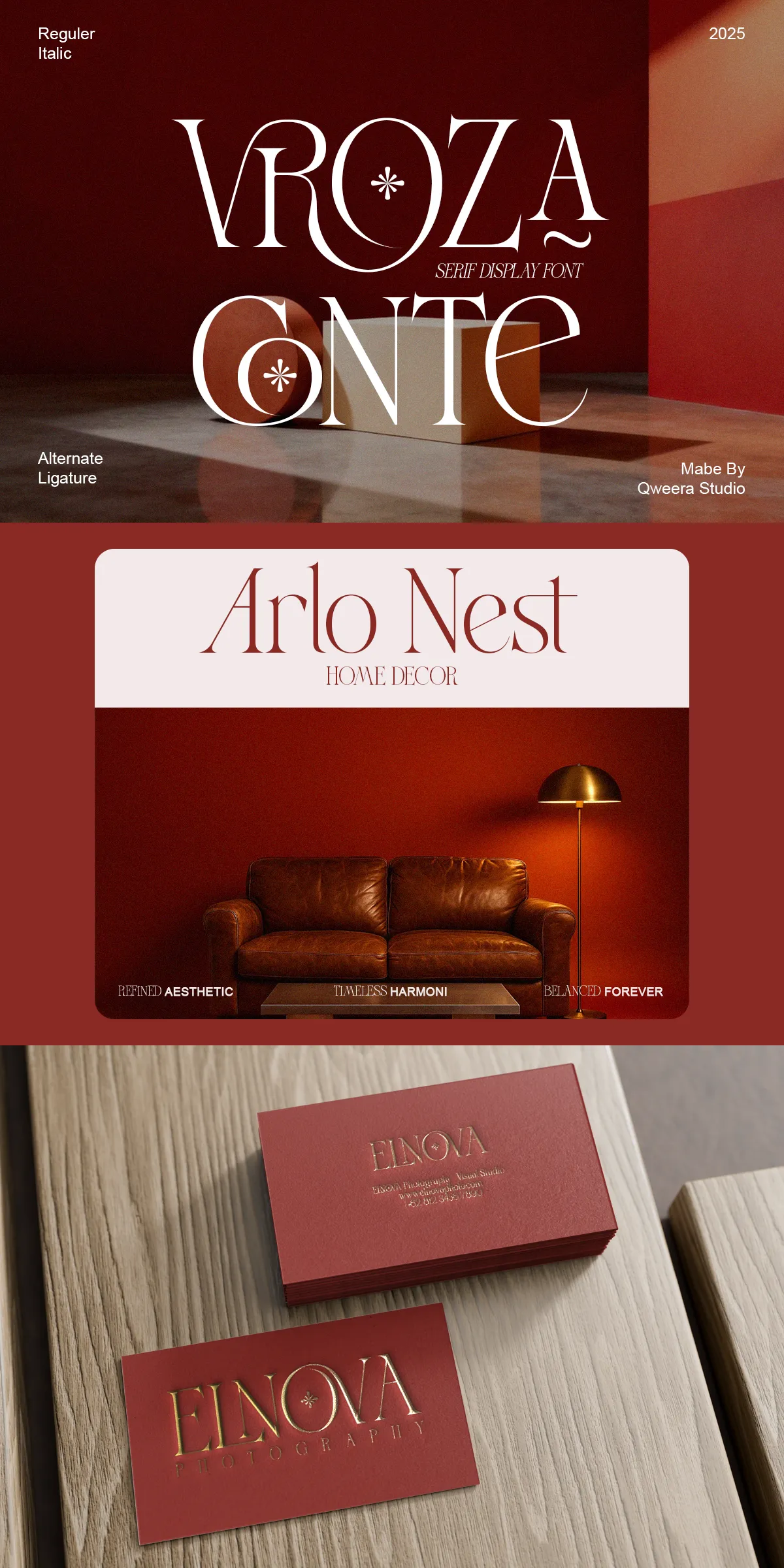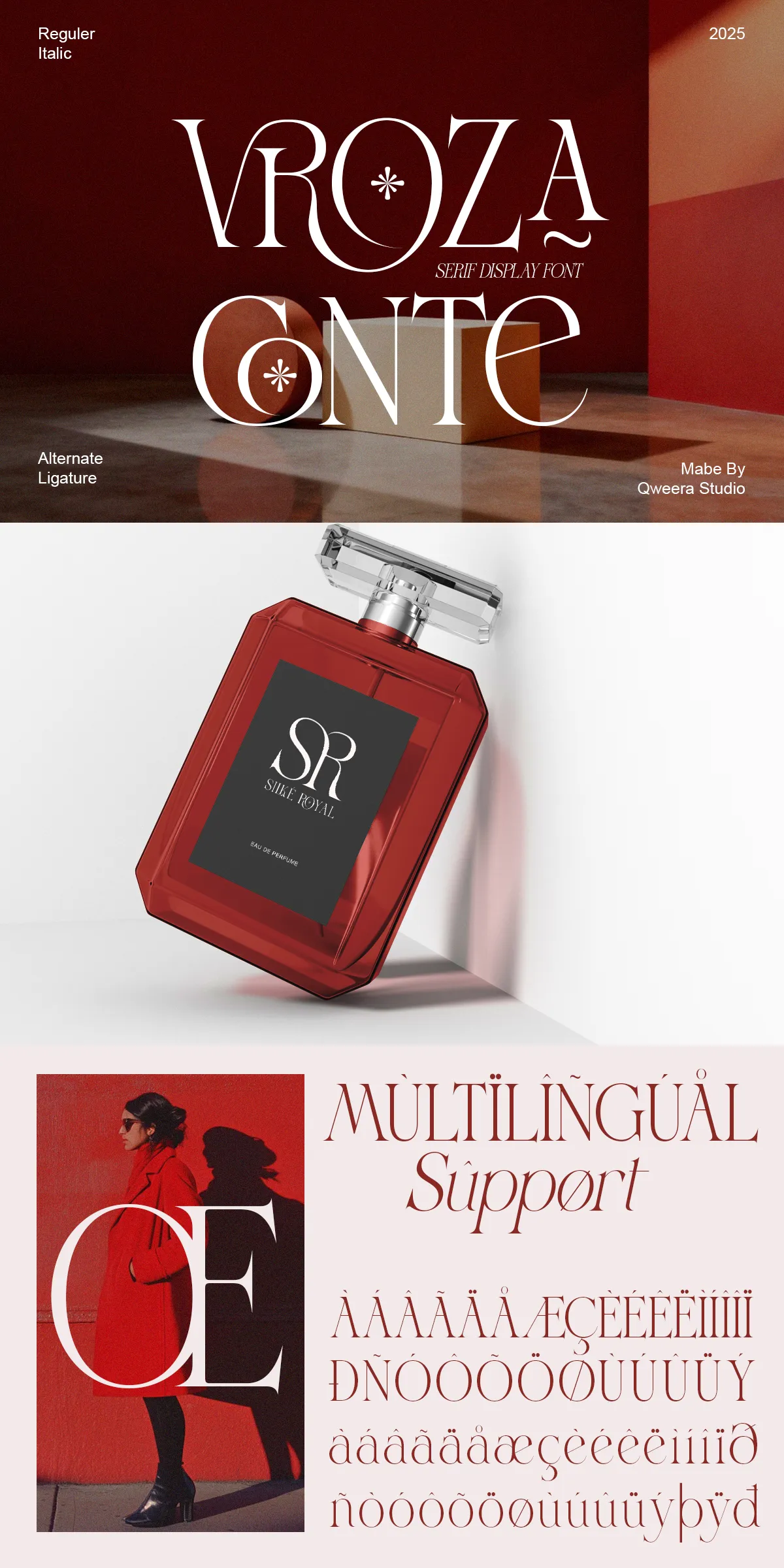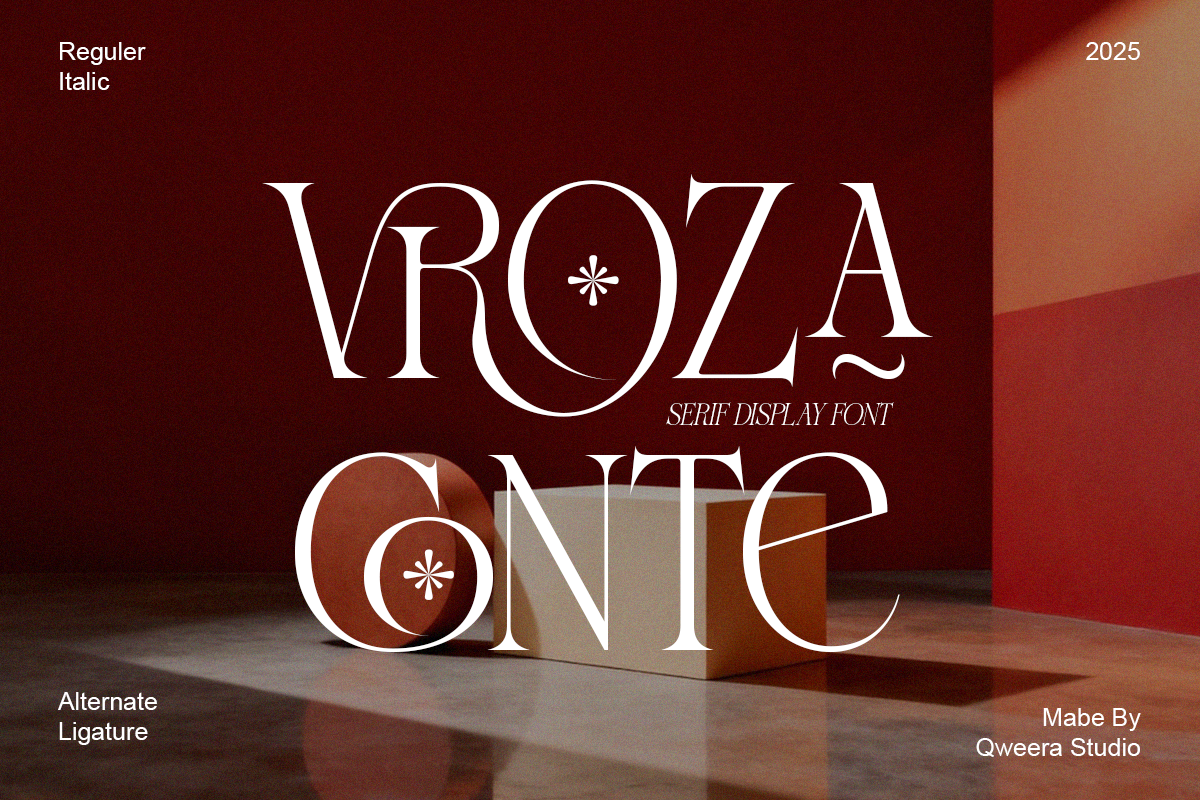
Vroza Conte – Elegant Modern Display
Vroza Conte asserts a refined typographic presence that blends contemporary structure with subtle decorative flourishes. Designed to express modern luxury and artistic refinement, this serif display family empowers creatives to craft identities, headlines, and packaging that convey confidence, sophistication, and timeless style. The typeface balances clean proportions with considered embellishments so that every letter communicates intention and craft. Use Vroza Conte when projects demand a distinctive typographic voice that reads clearly while elevating the visual character of your brand or publication.
Why Vroza Conte Elevates Premium Brand And Editorial Experiences
Vroza Conte actively strengthens visual narratives with a measured combination of modern geometry and elegant serif details. Its structured letterforms provide strong legibility at display sizes while decorative terminals and refined contrast introduce personality and warmth. This font performs equally well within bold logo treatments and graceful headline layouts, delivering clarity without sacrificing artistic flair. Designers will find Vroza Conte especially effective when they need typography that signals luxury, craft, and editorial intelligence in equal measure.
Distinctive Design Features That Shape Vroza Conte’s Character
Vroza Conte features deliberate design choices that add both function and beauty to typographic work. The family includes a regular and italic voice that complement one another for dynamic editorial hierarchies. Alternates and ligatures provide bespoke connections and rhythmic word shapes suitable for logotypes and expressive headlines. Decorative serif elements introduce subtle ornamentation that reads as intentional sophistication at large sizes yet remains restrained for refined compositions. Multilingual support and PUA-encoded glyphs ensure accessibility and easy access to stylistic forms across design applications.
Complete Feature Set For Creative Workflows
• Regular and Italic styles that enable strong typographic hierarchy
• Full uppercase and lowercase alphabets for comprehensive typesetting
• Alternates and ligatures to craft custom wordmarks and flowing display text
• Decorative serif elements that add artistic refinement without overpowering designs
• Multilingual support to cover a broad range of Latin-based languages
Practical Applications And Creative Strategies With Vroza Conte
Apply Vroza Conte to fashion editorials, where large, confident headlines create mood and capture attention on covers and spreads. Use alternates and ligatures to compose bespoke logos for boutique brands and premium product lines, giving wordmarks an artisanal, handcrafted feel. On packaging, Vroza Conte communicates material quality and careful design choices, particularly when paired with tactile printing methods and refined color palettes. For invitations and stationery, the italic and decorative forms add motion and elegance, transforming simple wording into composed expressions of taste.
Pairing Recommendations And Implementation Tips
To maximize Vroza Conte’s impact, pair it with a neutral sans-serif for body copy to preserve legibility while letting the serif lead the design voice. Apply generous tracking and slightly increased leading in large display settings to highlight the decorative traits and maintain visual balance. When preparing files for print or web, test how the decorative elements reproduce at intended sizes and choose appropriate weights to prevent loss of detail on textured surfaces or in small-format applications. Document preferred alternates and ligature use in brand guidelines to ensure consistent application across teams.